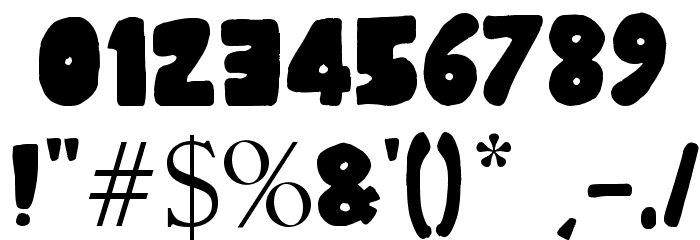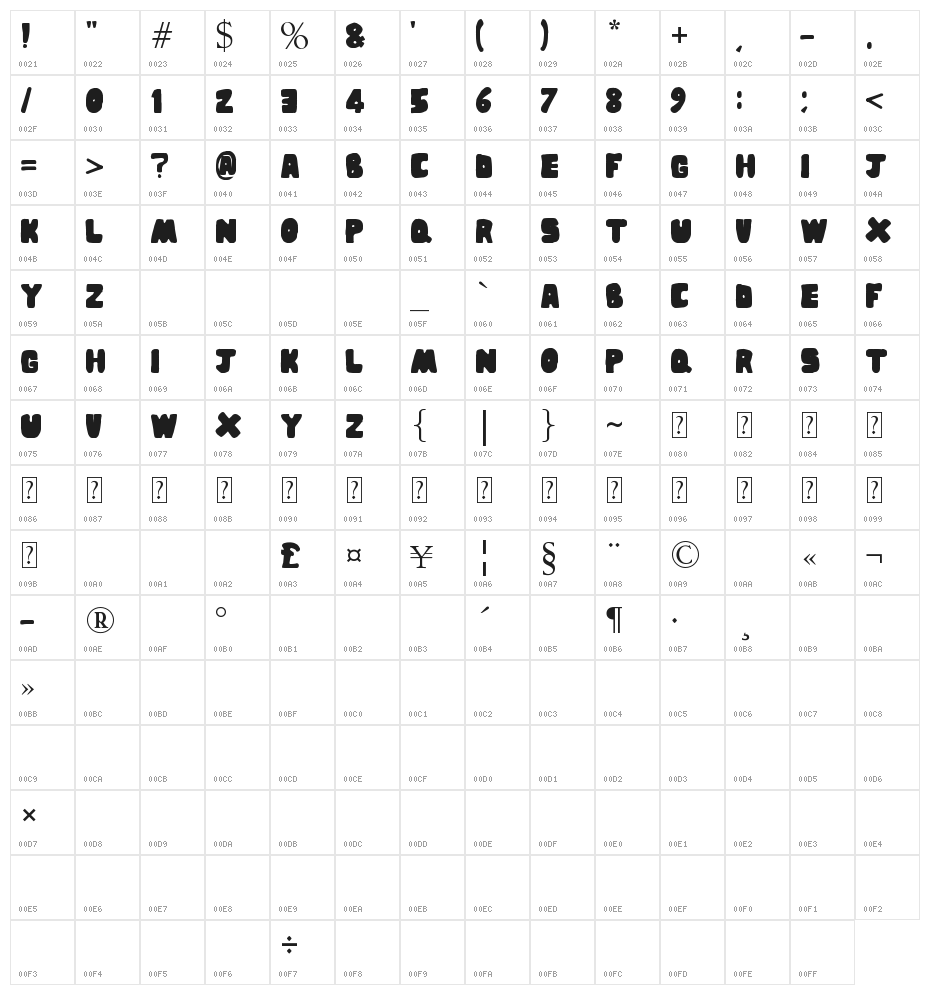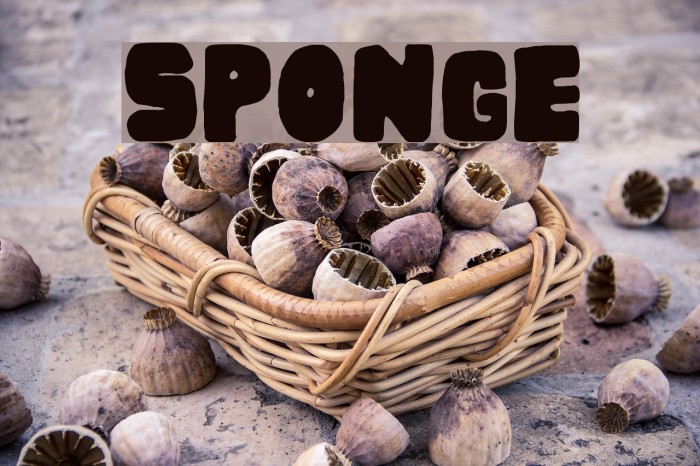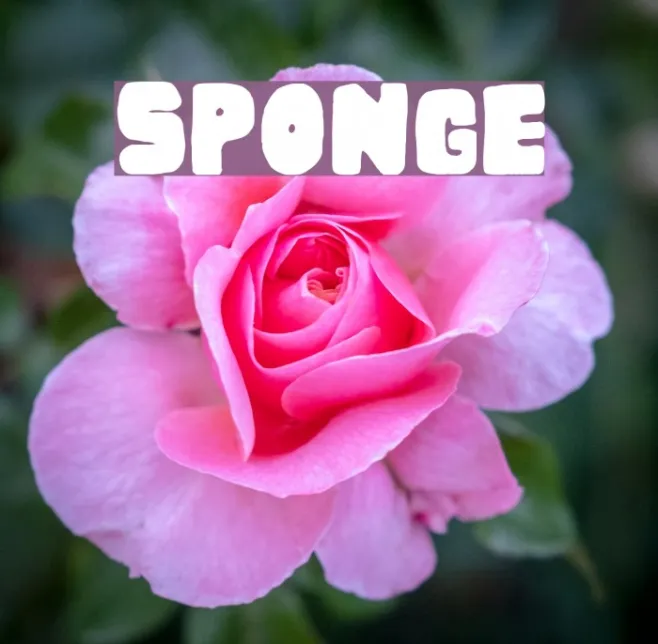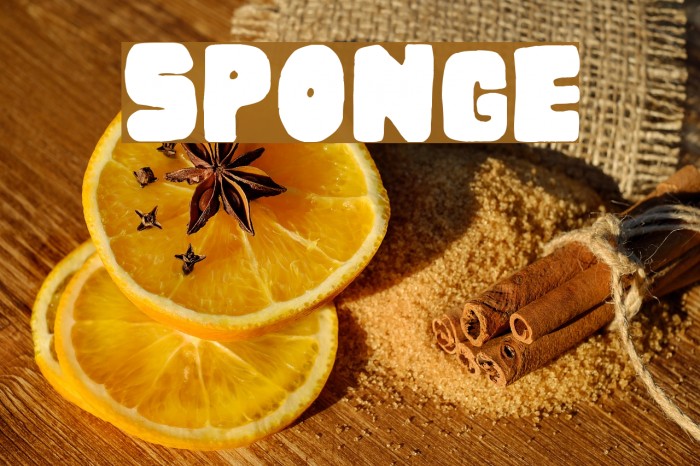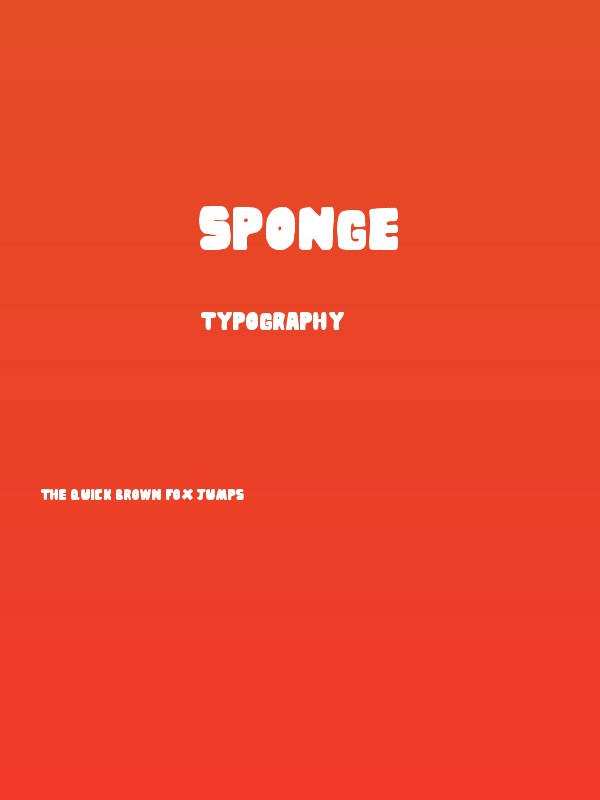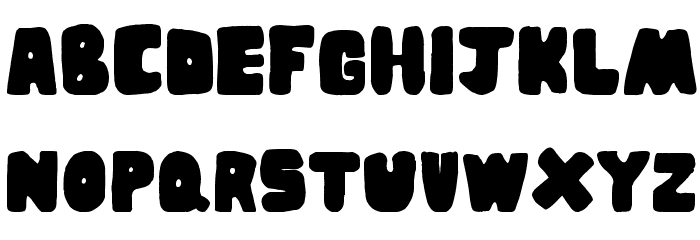
Sponge Font
Sponge Description
This playful and bold font features thick, rounded characters that evoke a sense of fun and whimsy. The letters are slightly irregular, giving them a hand-drawn appearance that adds to their charm. The uppercase and lowercase letters maintain a consistent style, with a strong emphasis on rounded edges and a bubbly aesthetic. The numbers and special characters follow the same design principles, ensuring a cohesive look across all elements. This font is ideal for projects that require a touch of humor and creativity, such as children's books, playful branding, or eye-catching headlines.
| Proposed Projects | Ideal for children's books, playful branding, and eye-catching headlines. |